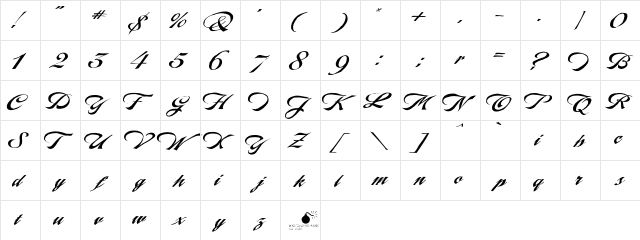
LHF Marie Script Regular Regular
Regular · Dave Correll for Letterhead Fonts Dave Correll ·
Design Context for LHF Marie Script Regular Typeface
LHF Marie Script Regular flows with the natural rhythm of handwritten lettering, making it ideal for designs that call for warmth and personal expression.
Font Pairing: Combine LHF Marie Script Regular with a simple geometric sans for maximum contrast — the tension between flowing curves and clean structure is a classic typographic pairing.
Pro Tip: Use LHF Marie Script Regular for short runs of text — names, titles, or taglines. Extended body copy in script faces tires the eye quickly.